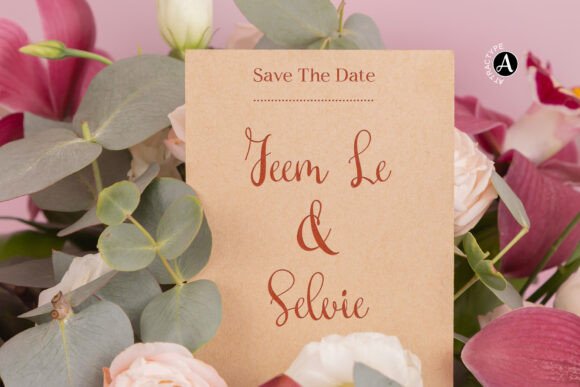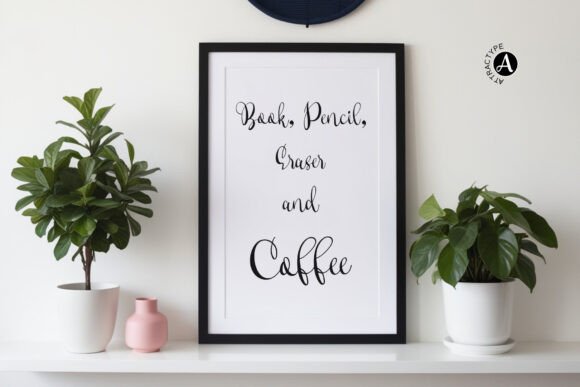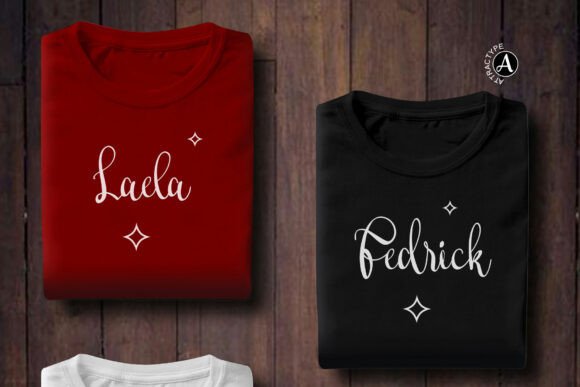
Introduction to Salmares Font
Salmares – A beautiful handwritten font, made of creative strokes with high contrast.
This font is suitable for all your creative designs With a modern style and smooth curves, this font will beautify your creations both in digital and printed forms such as invitations, banners, advertisements, websites, letterheads, packaging products, brochures, social media and more.
Key Features of Salmares Font
Why Choose Salmares Font?
Salmares Font offers exceptional quality and versatility, making it a valuable addition to your design toolkit. Whether you’re creating for personal projects or commercial use, Salmares Font delivers professional results.